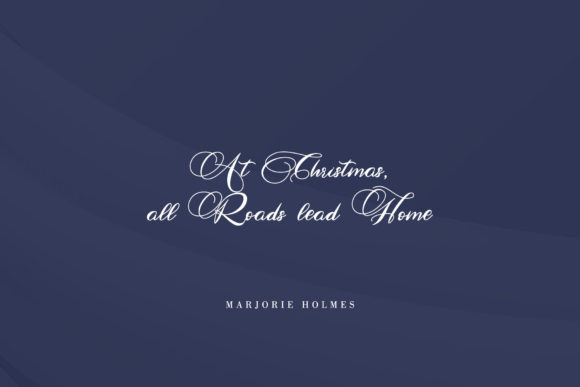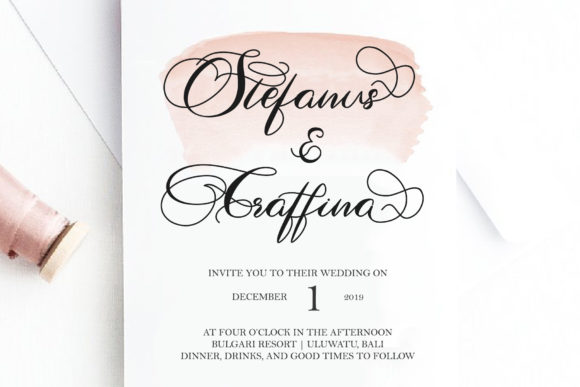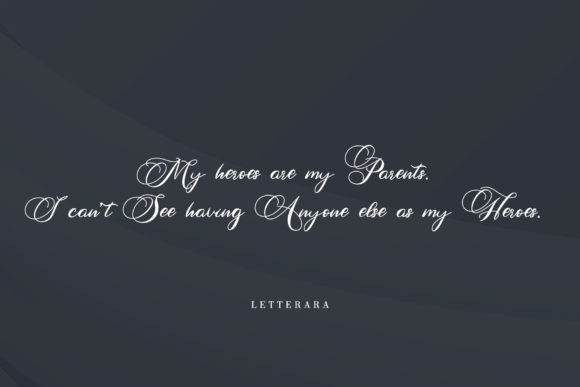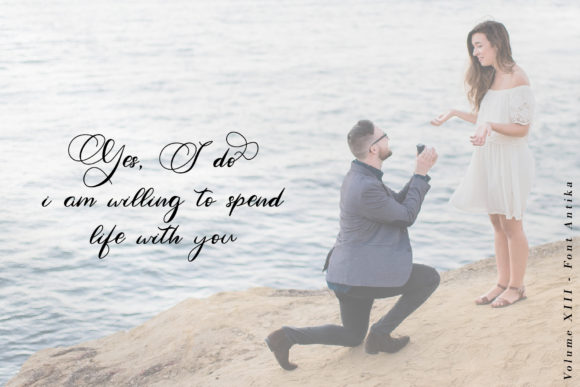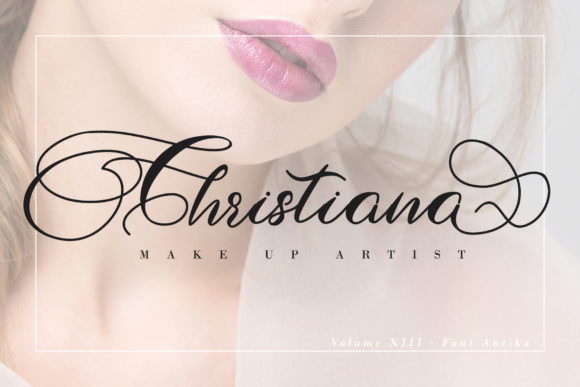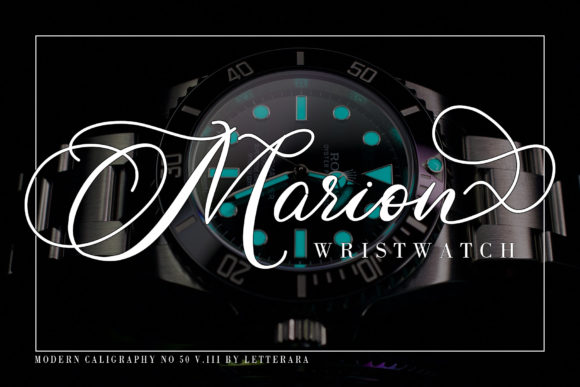
Discover the Perfect Script for Your Next Creative Project
Have you ever been in the middle of a design project, staring at a blank page, and suddenly, the perfect font pops into your head? It’s like a spark of inspiration that sets your creativity ablaze. For many designers, this moment is a game-changer. It’s the moment when all the pieces come together, and the design starts to take shape.
| 👤 Author | thomasaradea |
For those designers looking to add a touch of elegance and sophistication to their work, we’ve got just the thing – the Antika Font. This fresh and modern script font is designed to give your designs a unique and sweet look. With flowing letters that seem to dance across the page, Antika Font is the perfect addition to any design project.
Whether you’re a seasoned designer or just starting out, the Antika Font is a valuable asset to have in your toolkit. Its versatility and unique style make it a great choice for a wide range of projects, from branding and advertising to digital design and print materials.
Antika Font Key Features
- Unique Characteristics: The font features a unique blend of traditional and modern elements, with intricate details and ornate flourishes that set it apart from other fonts.
- Language Support: Antika Font supports a wide range of languages, including Latin, Cyrillic, and Greek scripts, making it a versatile choice for multilingual designs.
- Style Variations: The font family includes several style variations, including Regular, Bold, Italic, and Bold Italic, allowing designers to achieve a range of visual effects.
Review of Antika Font
As a designer, I’ve had the chance to work with Antika Font, and here’s my honest take on it.
The Antika Font has a unique, elegant feel to it that makes it perfect for luxury or high-end projects.
- It has a wide range of weights and styles, making it versatile for various design applications.
- The font is highly legible, even at smaller font sizes, which is essential for digital design.
- The ligatures and connections between letters are smooth and cohesive, adding to the overall aesthetic.
While the Antika Font is a great choice for many projects, there are a few limitations to consider.
- The font may be too ornate or fancy for some designs, such as those that require a more minimalist approach.
- It may not be the best choice for projects that require a lot of text, as the font’s elegance can be lost in dense text.
- The font’s complexity may lead to compatibility issues in certain software or operating systems.
Overall, the Antika Font is a solid choice for designers looking for a high-end, elegant font. While it has its limitations, it’s a great addition to any design toolkit.
For the best results, use Antika Font in headings and titles to add a touch of elegance and sophistication.
- Restaurant and cafe menus